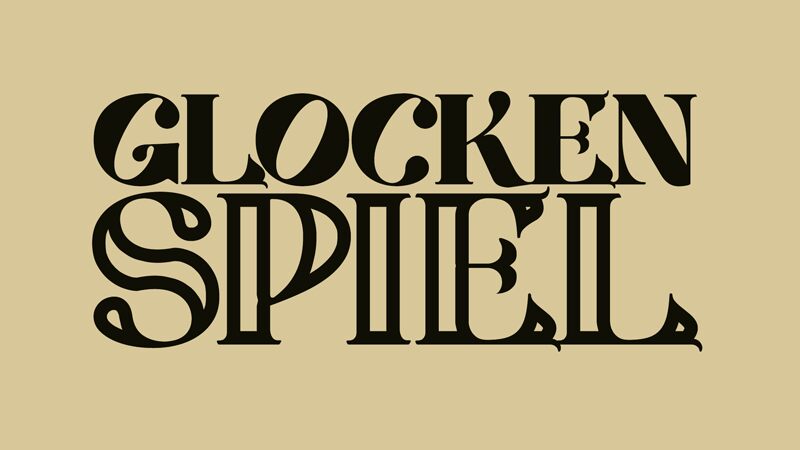
LT Glockenspiel Black is a retro display font designed by LyonsType. With its extra-bold weight, this font commands attention and makes a bold statement. Its unique magnitude reflects the art nouveau period and the aesthetics of the 19th century. Inspired by the works of Herman Ihlenburg and Schelter & Giesecke, this font is suitable for projects that require a vintage or antique feel. Perfect for posters, book covers, and branding materials, LT Glockenspiel Black will transport your audience back in time while adding a touch of nostalgia to your designs.